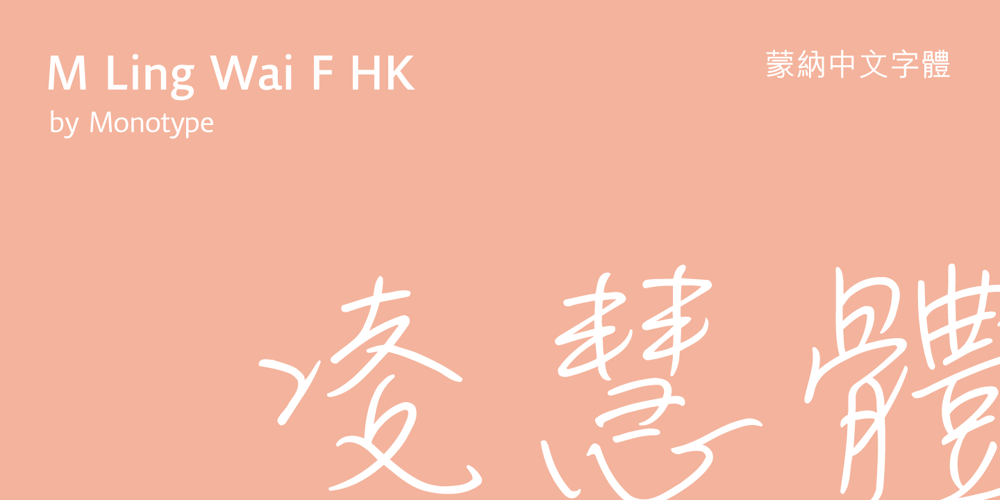
M Ling Wai F HK Font Family was designed by Monotype HK Design and published by Monotype HK. M Ling Wai F HK contains 1 styles and family package options. M Ling Wai is a humanistic script based on a real handwritten style. It has a feminine, urban and lively character filled with literate finesse. M Ling Wai was written with a thin ball pen by a young woman in a unique, personal, running writing style, such that it is real, natural and feminine. Contrast of strokes is low and the text is visible and eye-catching. Its light to medium stems (豎) make it suitable for small text and subheading with little conglutination. All strokes are highly irregular, inconsistent, irregularly oriented and tightly coupled or connected. Spatial distribution, positioning, size and relative proportion of radicals fully reflect a natural and personal favor. It is one of the first proportional width font in a full scale. It is best suited for casual lively text, illustrations, set upright (non-slanted), non-condensed.